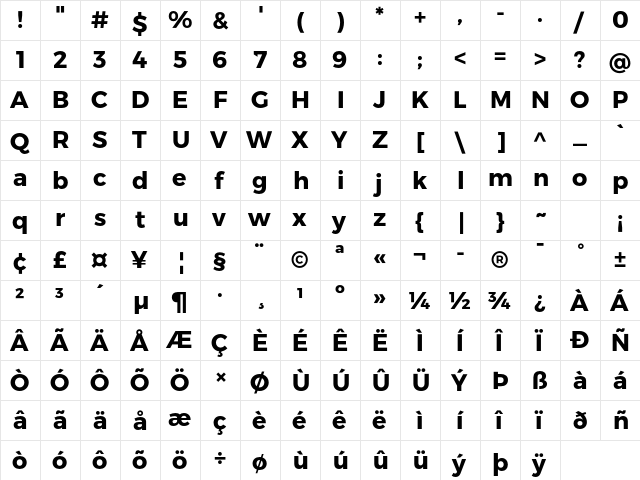
Trueno Bd Font Preview
Trueno Bd
| Foundry | Julieta Ulanovsky |
| Designer | Julieta Ulanovsky |
Design Context for Trueno Typeface
Trueno takes a measured approach to typography — its balanced proportions and neutral character make it a reliable workhorse for both digital and print work. Its bold stroke weight gives it real presence on the page.